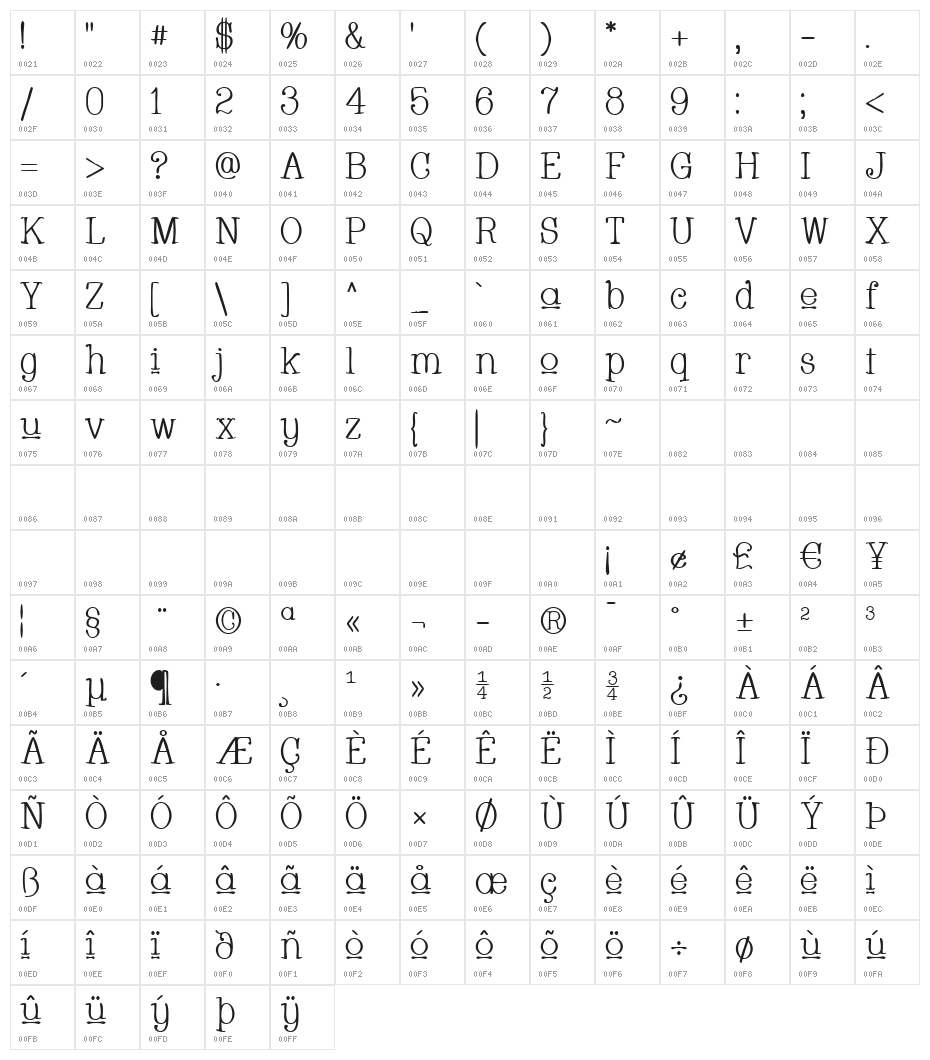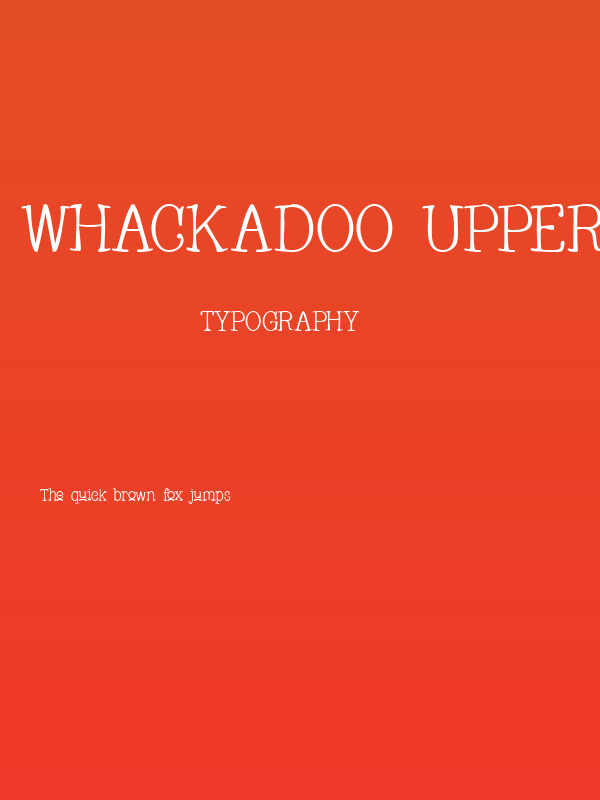
Whackadoo Upper Font
Whackadoo Upper Description
This font features a whimsical and playful design, characterized by its curly and exaggerated serifs. The letters have a hand-drawn quality, with varying stroke widths that add to its quirky and informal appearance. The uppercase letters are bold and prominent, while the lowercase letters maintain a consistent style with slightly more subtle curves. Numbers and special characters follow the same playful theme, making the font suitable for creative and fun projects. The overall look is lively and energetic, perfect for capturing attention.